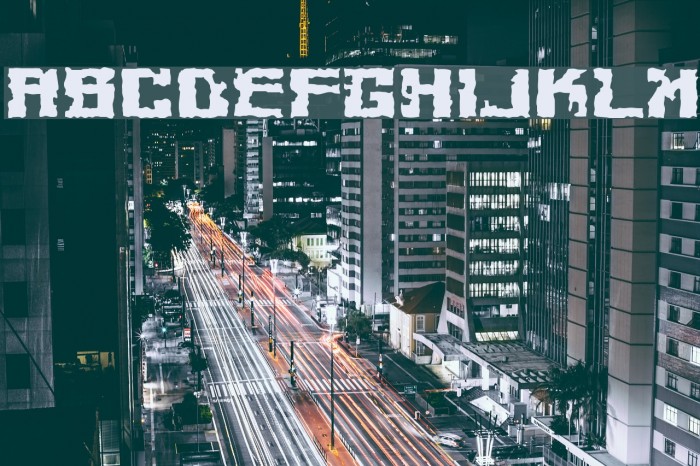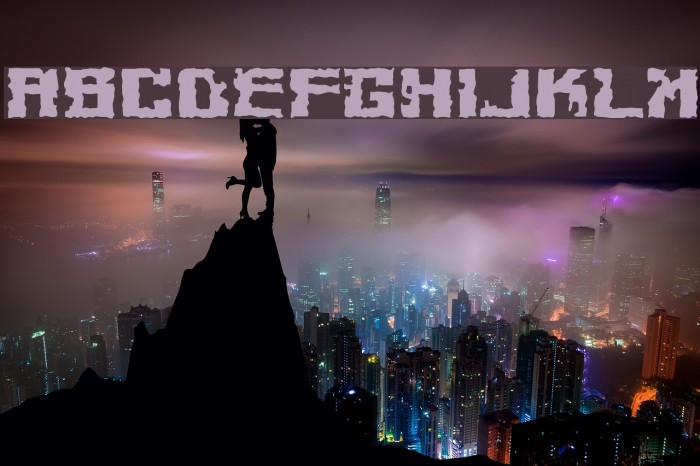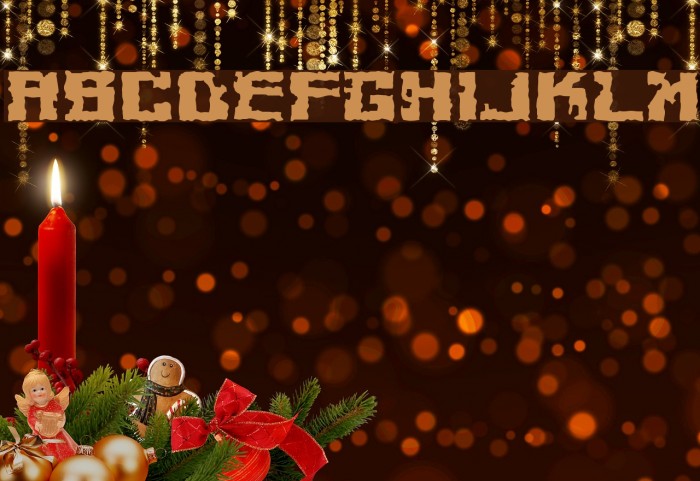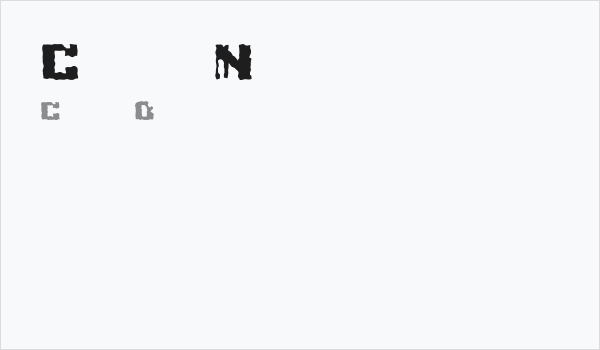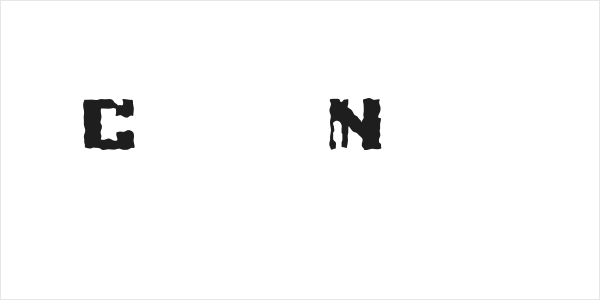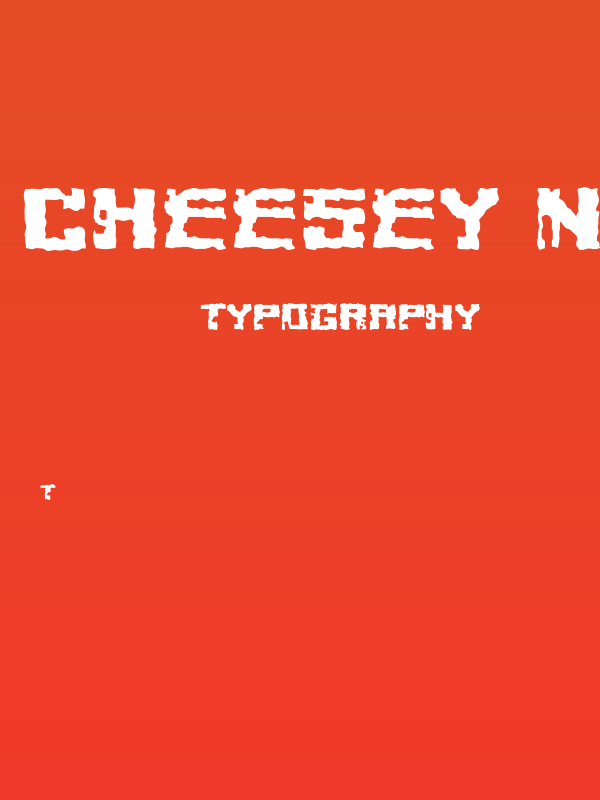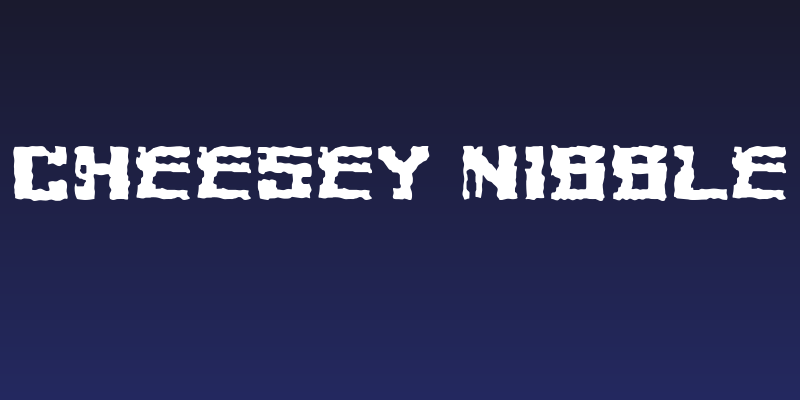
Cheesey Nibble Font
Cheesey Nibble Description
This font features a bold and rugged design with a distressed, textured appearance reminiscent of eroded surfaces or rough materials. The characters are uppercase only, with a blocky structure that gives them a strong, impactful presence. The edges are irregular and jagged, adding to the font's gritty aesthetic. This style is suitable for creating a sense of rawness and intensity, making it ideal for projects that require a bold statement. The font's unique texture and boldness make it stand out, capturing attention with its unconventional and artistic flair.
| Proposed Projects | Ideal for posters, album covers, branding for edgy products, or any design needing a bold, gritty look. |